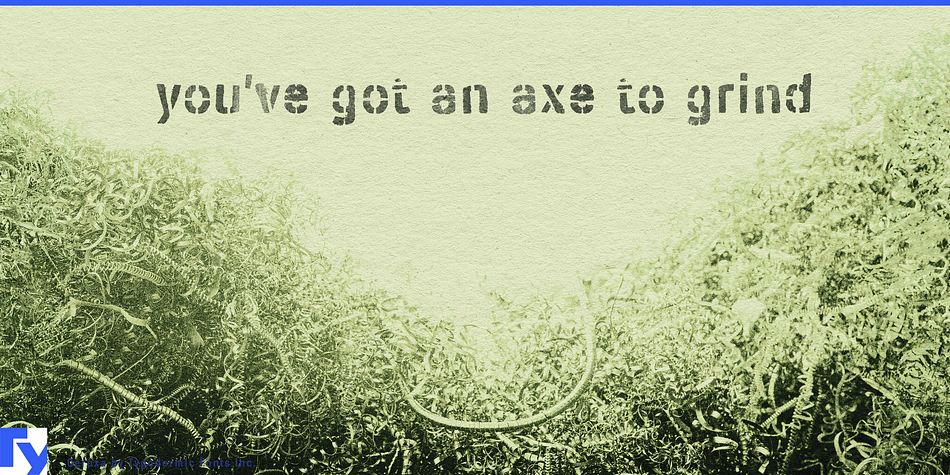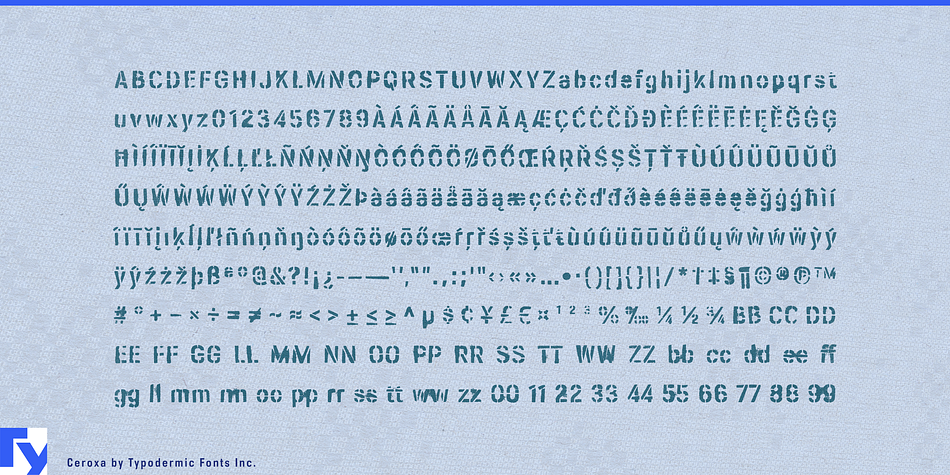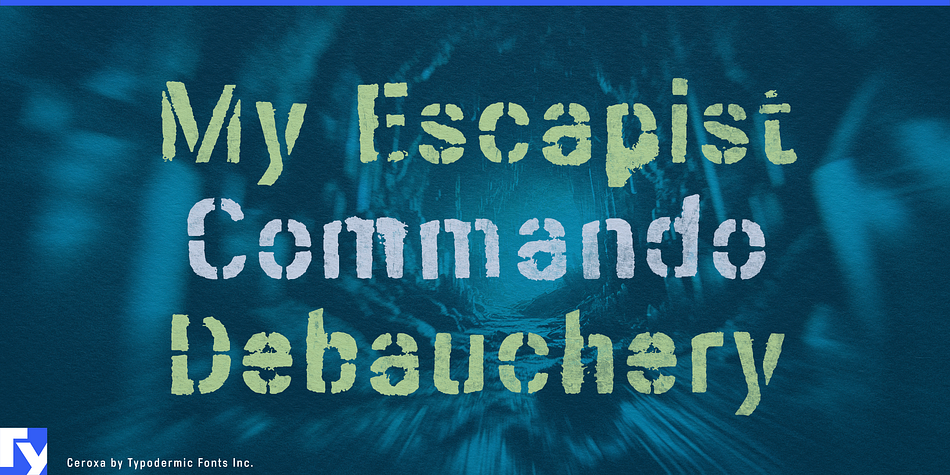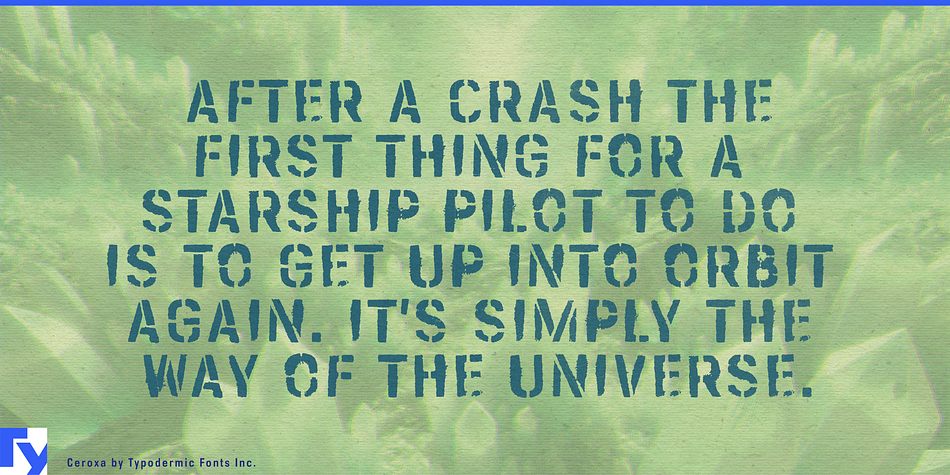
Ceroxa is a grunge and stencil font published by Typodermic Fonts Inc.
Ceroxa is a a hardheaded stencil typeface with a spattered spray-paint affectation. In OpenType savvy applications, some letter combinations are automatically replaced by custom pairs for a more natural, grimy tone.